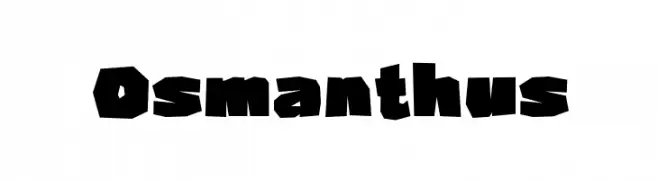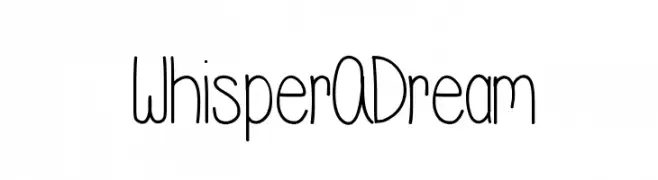
A playful, bold font with rounded edges and a friendly appearance.
A bold, textured font with an urban, graffiti-inspired style.
A bold, playful font with a 3D effect and dotted interior pattern.
A playful, hand-drawn font with tall, narrow letters and a whimsical style.
A whimsical collection of decorative symbols and playful icons with a hand-drawn aesthetic.
A bold, angular font with a geometric, hand-cut appearance.
A playful, handwritten font with tall, narrow letterforms.
A playful, hand-drawn font with tall, narrow letters and a whimsical style.
A playful, dot-based font ideal for fun and informal projects.
A playful, handwritten font with smooth, rounded edges and a whimsical style.